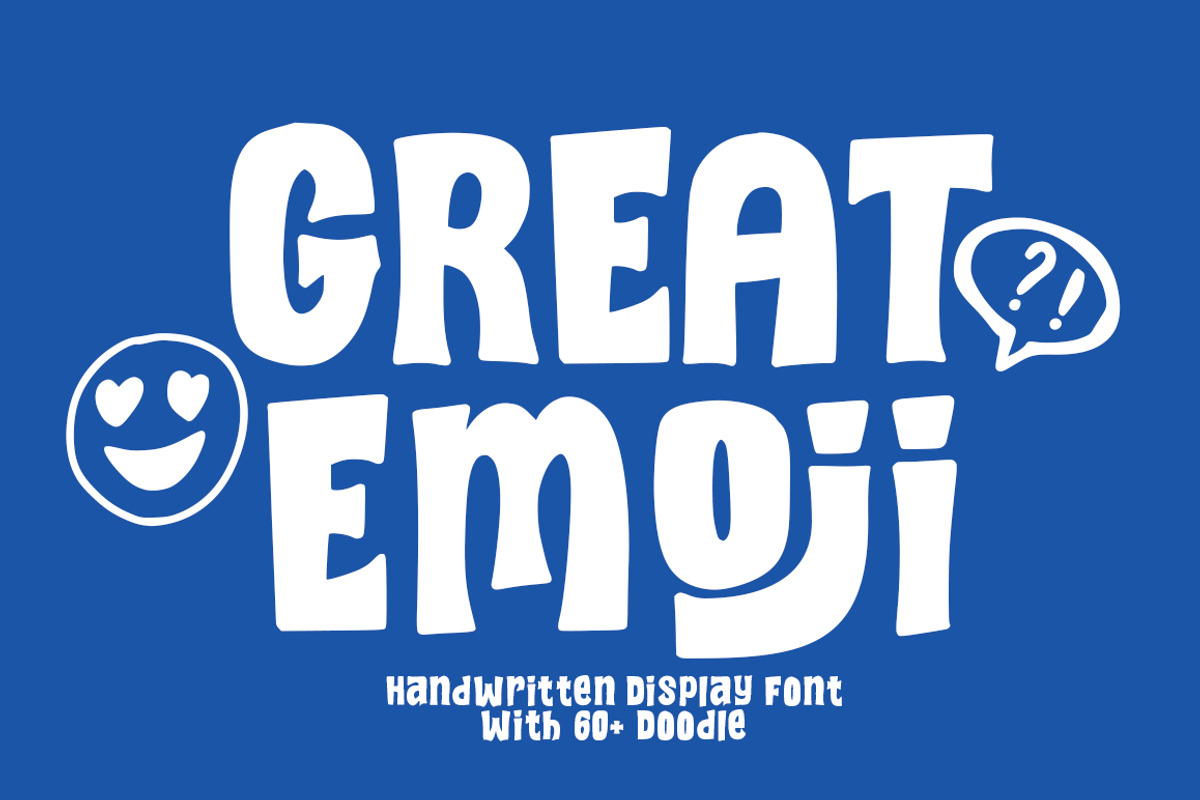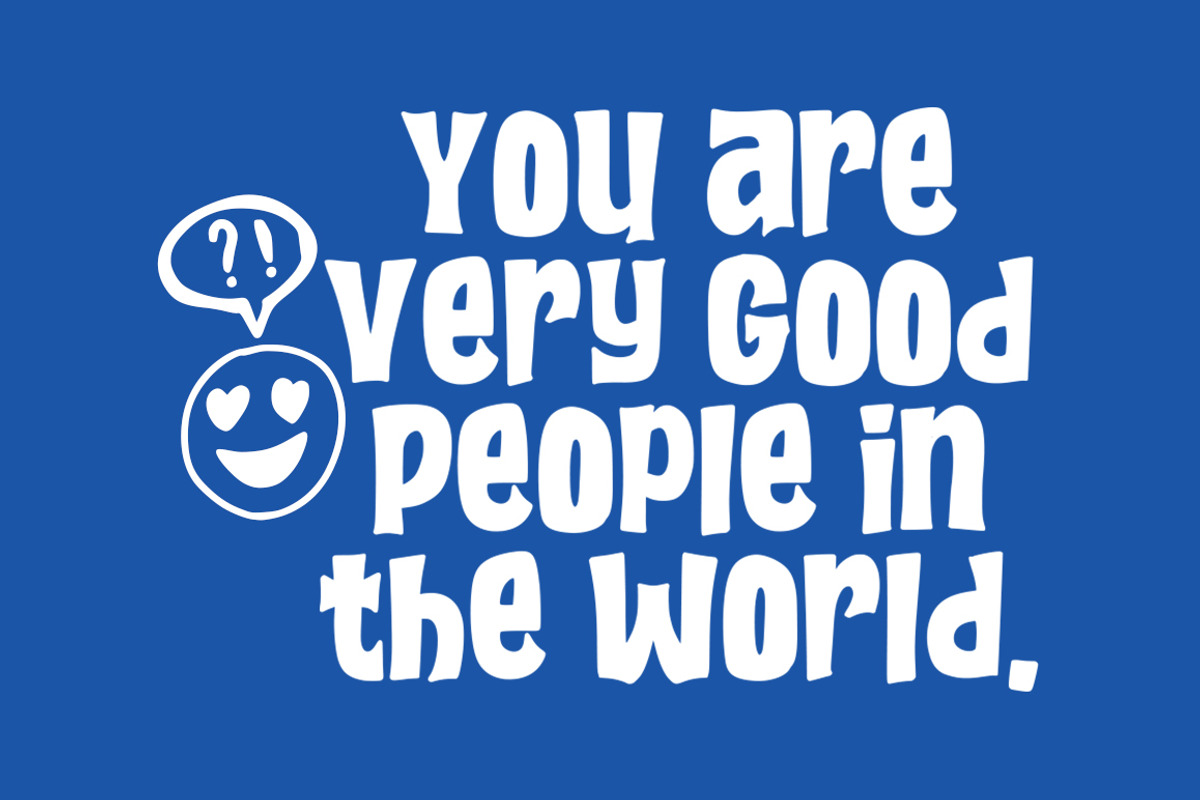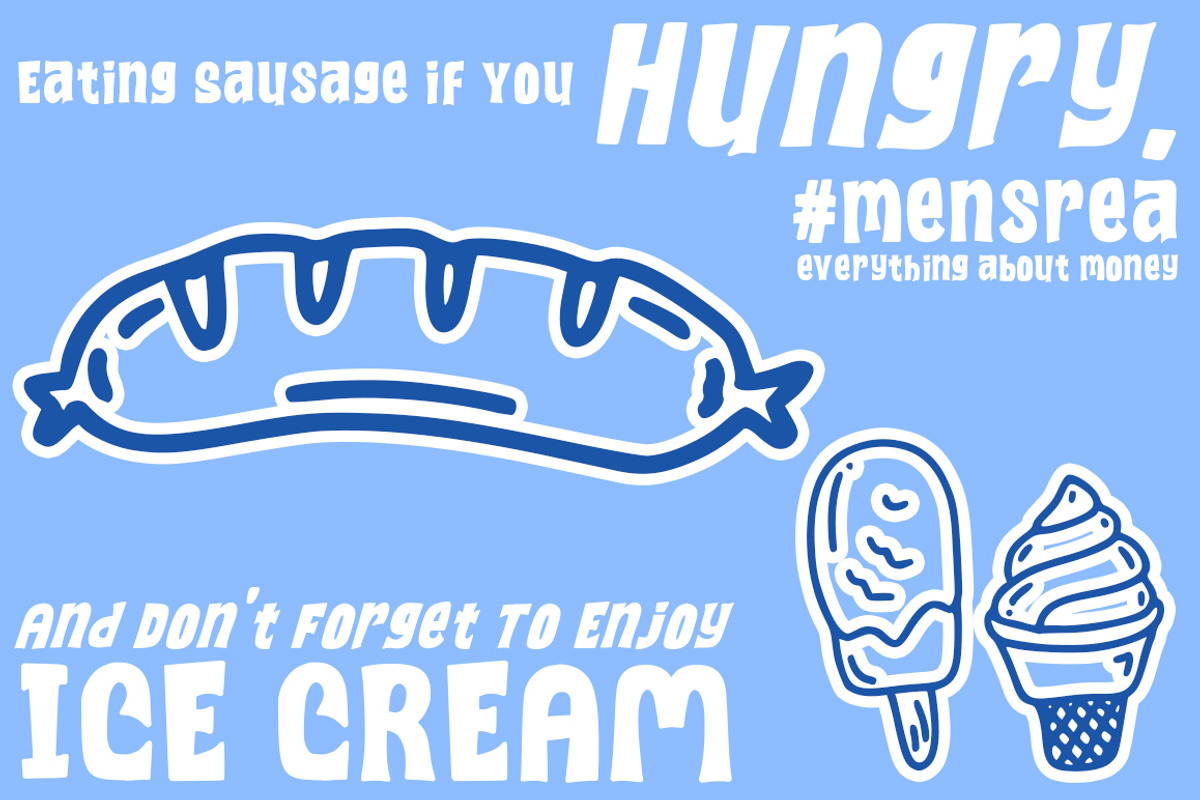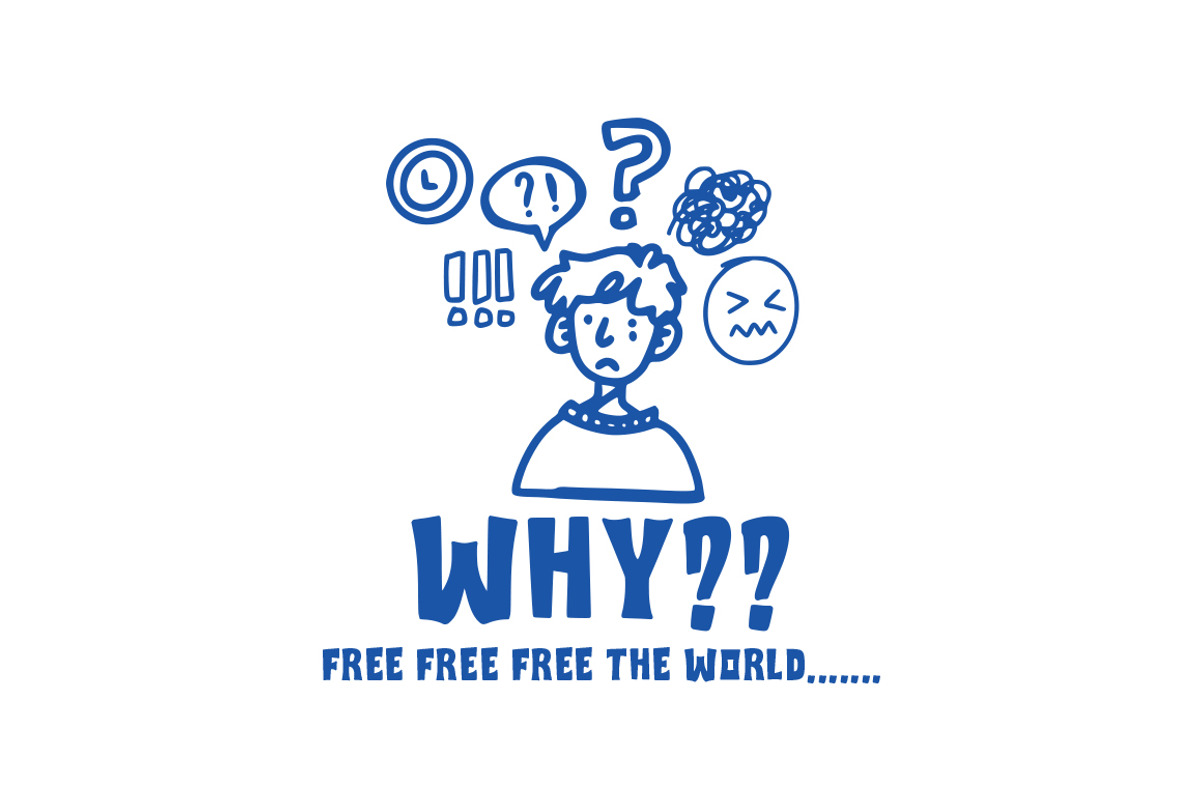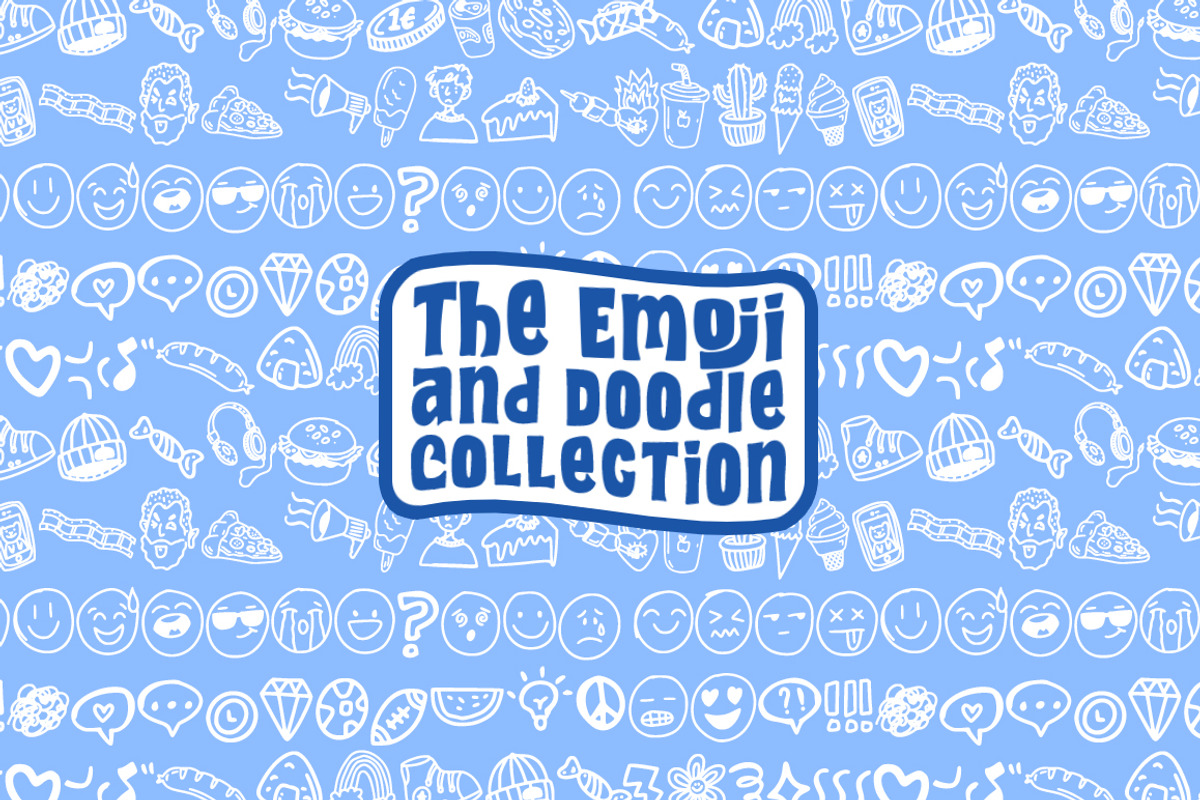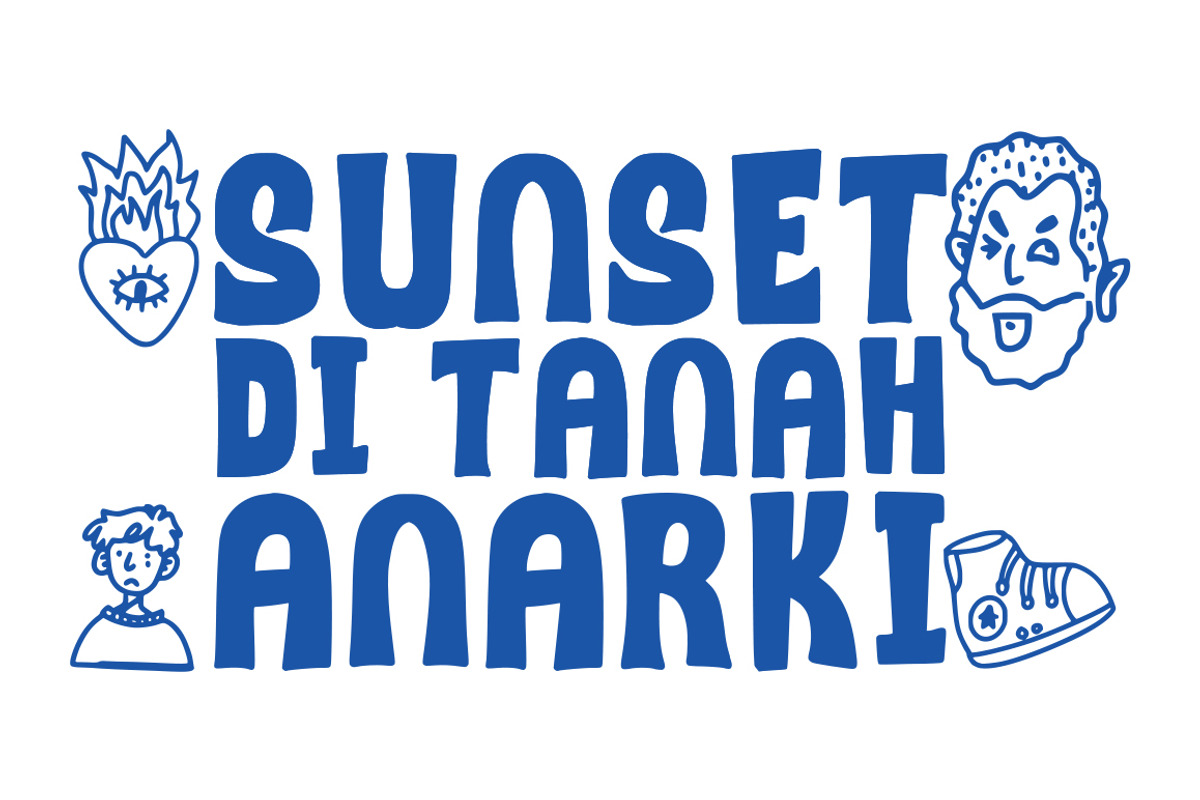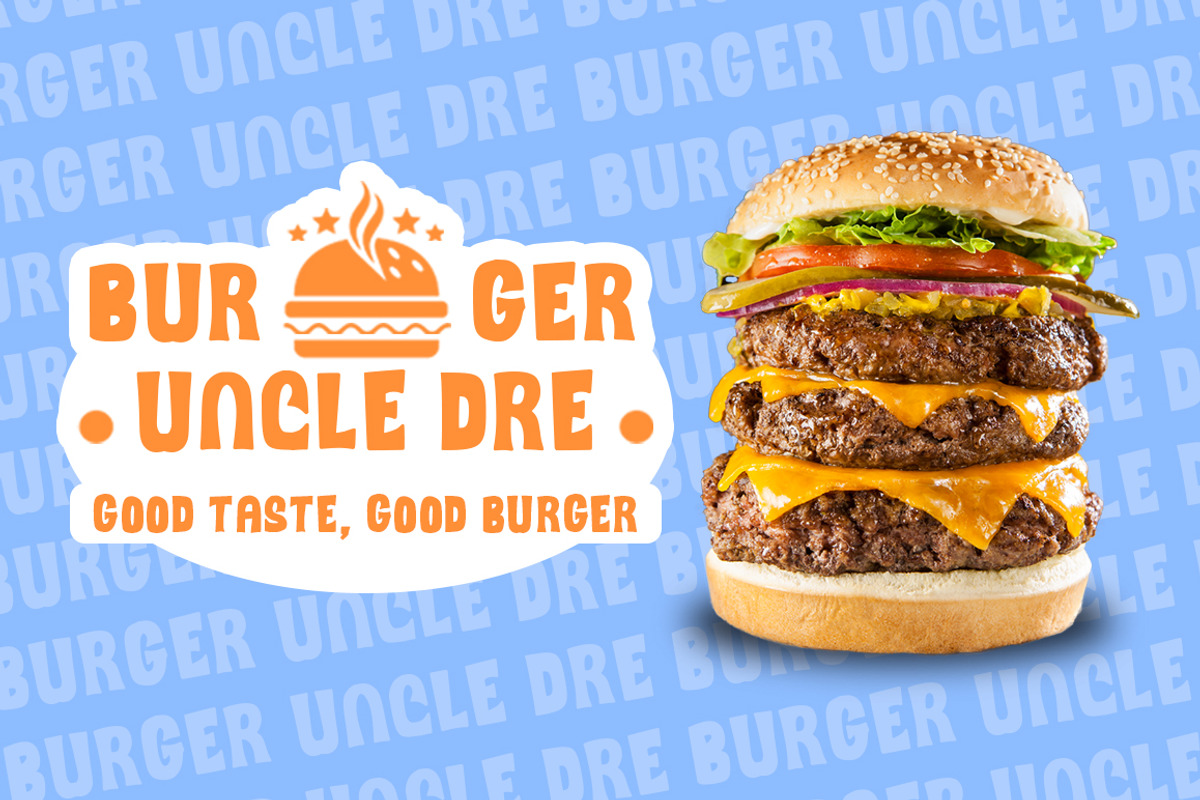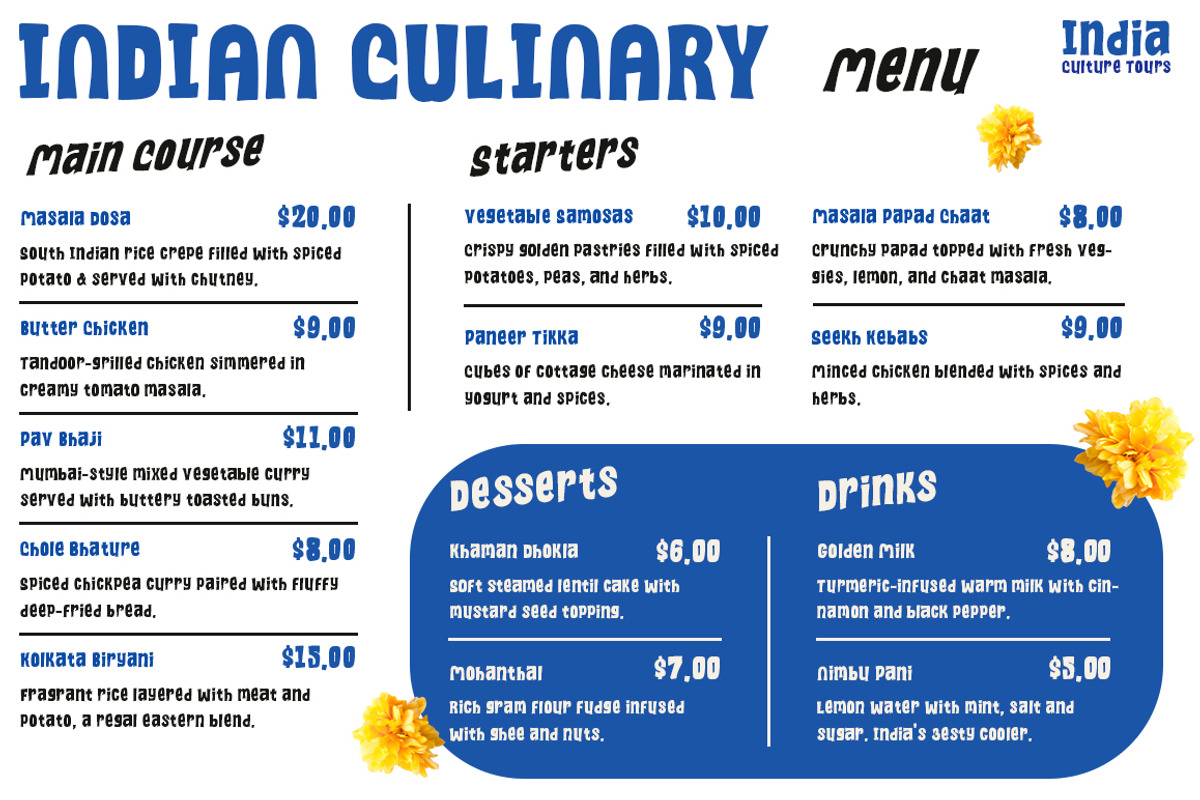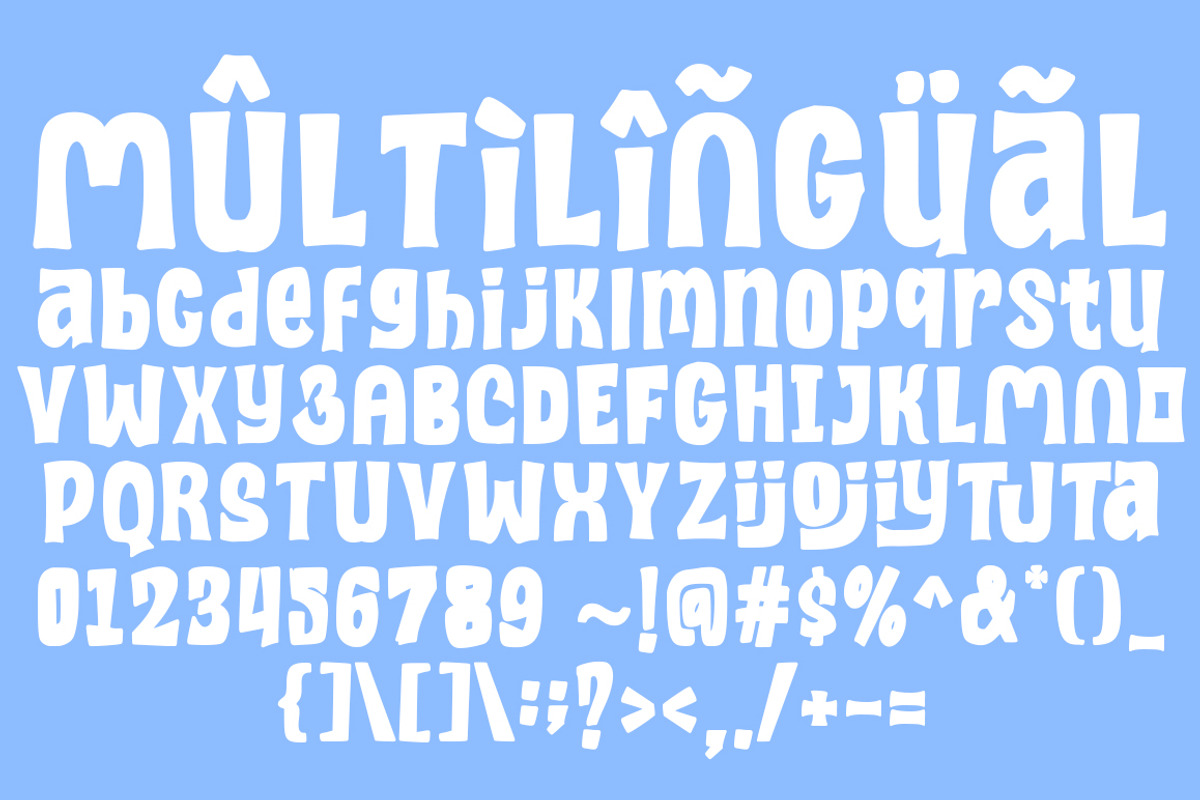
Great Emoji – Fun Handwritten Font
Great Emoji is a cheerful and expressive handwritten display font designed to bring fun and personality to your creative projects. With bold, playful letterforms and a casual hand-drawn look, this font is perfect for posters, children’s books, social media graphics, packaging, and anything that needs a vibrant, lighthearted touch.
This font family includes 3 unique styles:
Regular – A bold, rounded handwritten style for maximum visual impact.
Italic – A slanted version that adds dynamic motion and energy.
Doodle – A bonus set of 60+ hand-drawn emoji-style doodles to enhance your designs with expressive, illustrated elements.
Great Emoji is more than just a font – it's a mood booster for your designs!